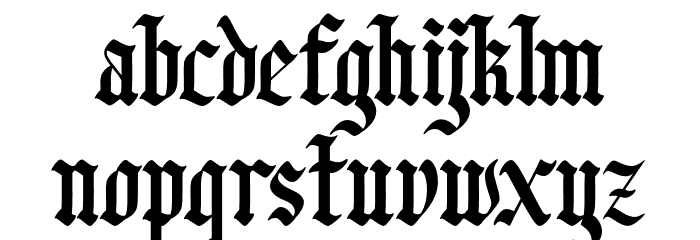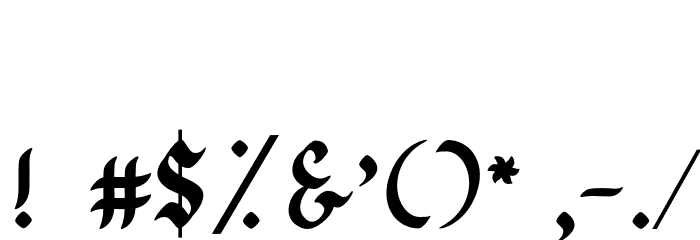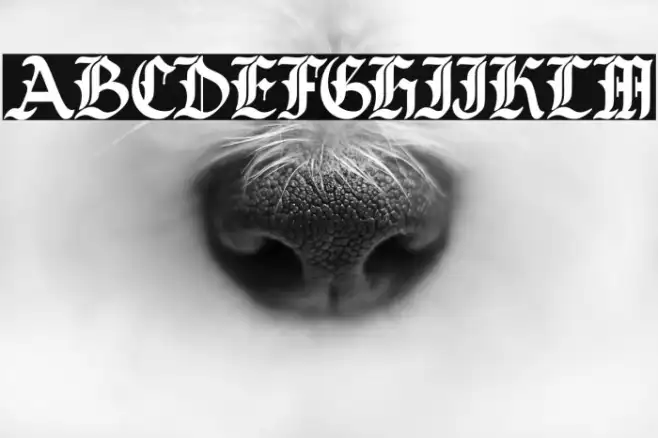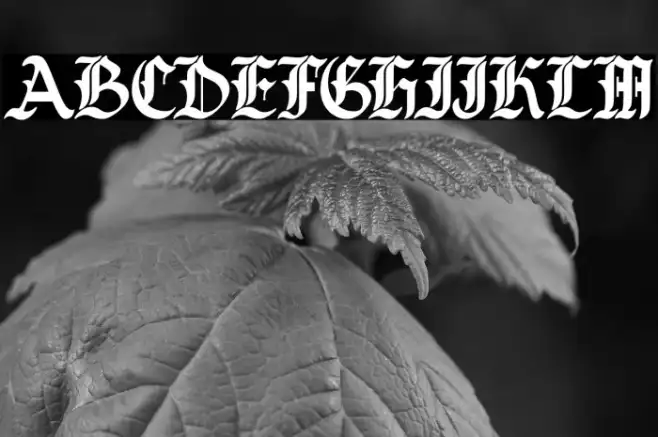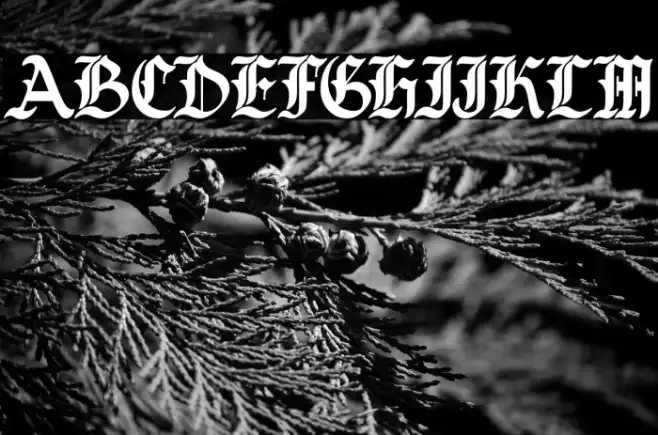
BughedsDEMO-Regular Font
This font features a classic blackletter style, characterized by its ornate and intricate letterforms. The uppercase letters exhibit sharp, angular lines with decorative flourishes, while the lowercase letters maintain a consistent style with slightly more rounded edges. The numerals and special characters are designed to match the overall aesthetic, providing a cohesive look. This font is reminiscent of traditional Gothic script, often used in historical documents and signage. Its bold presence and high contrast between thick and thin strokes make it stand out, capturing the essence of medieval calligraphy.
A bold, blackletter font with intricate, angular letterforms and high contrast.
- Proposed Projects: Ideal for projects requiring a historical or medieval theme, such as book covers, posters, or branding for vintage-inspired products.
- Character Spacing: Tight
- Overall Style: Vintage